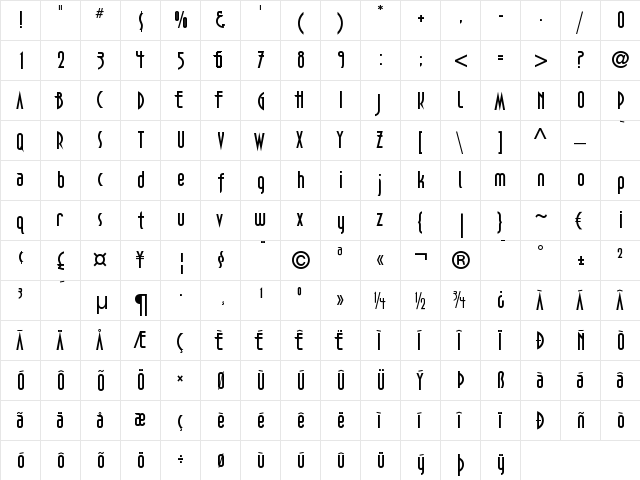
DecoTech Regular
Design Context for DecoTech Typeface
DecoTech channels digital-age aesthetics through its sharp, structured letterforms — ideal for brands that want to signal innovation.
Pro Tip: Use DecoTech in combination with a neutral sans for body text. Let it define the brand voice in headlines while keeping reading comfortable elsewhere.